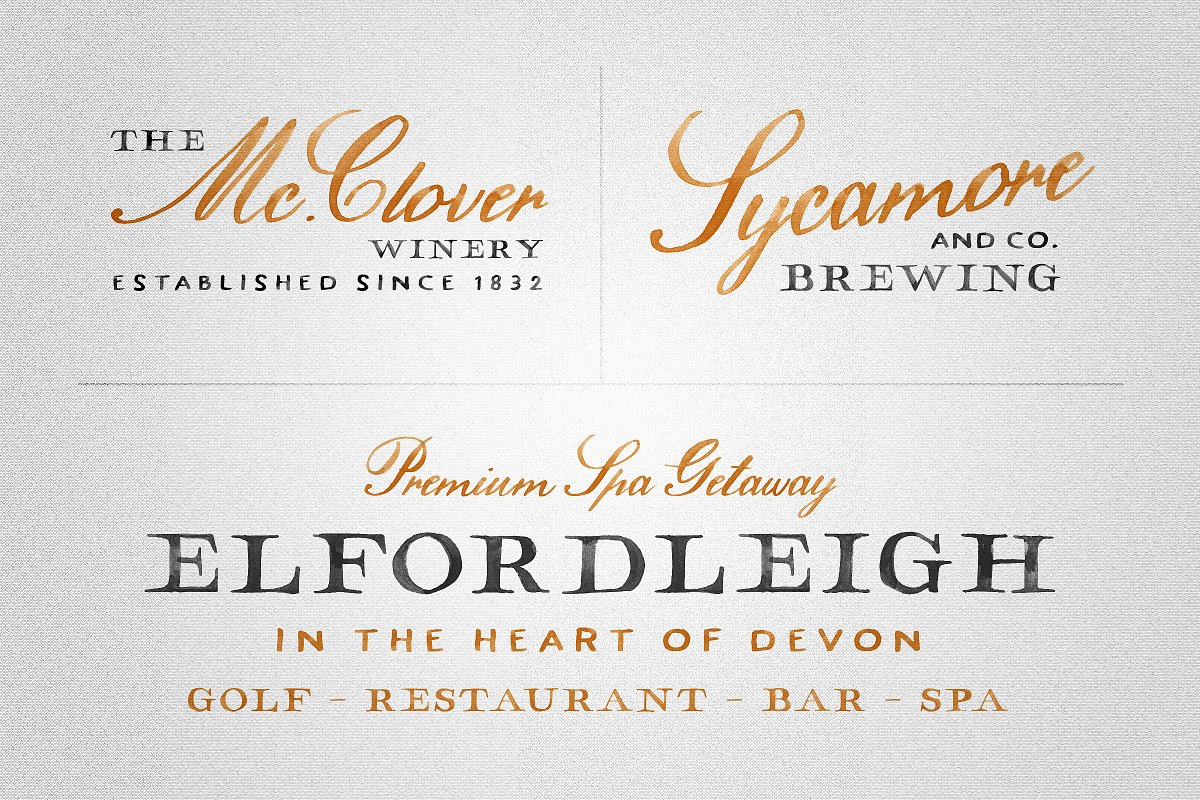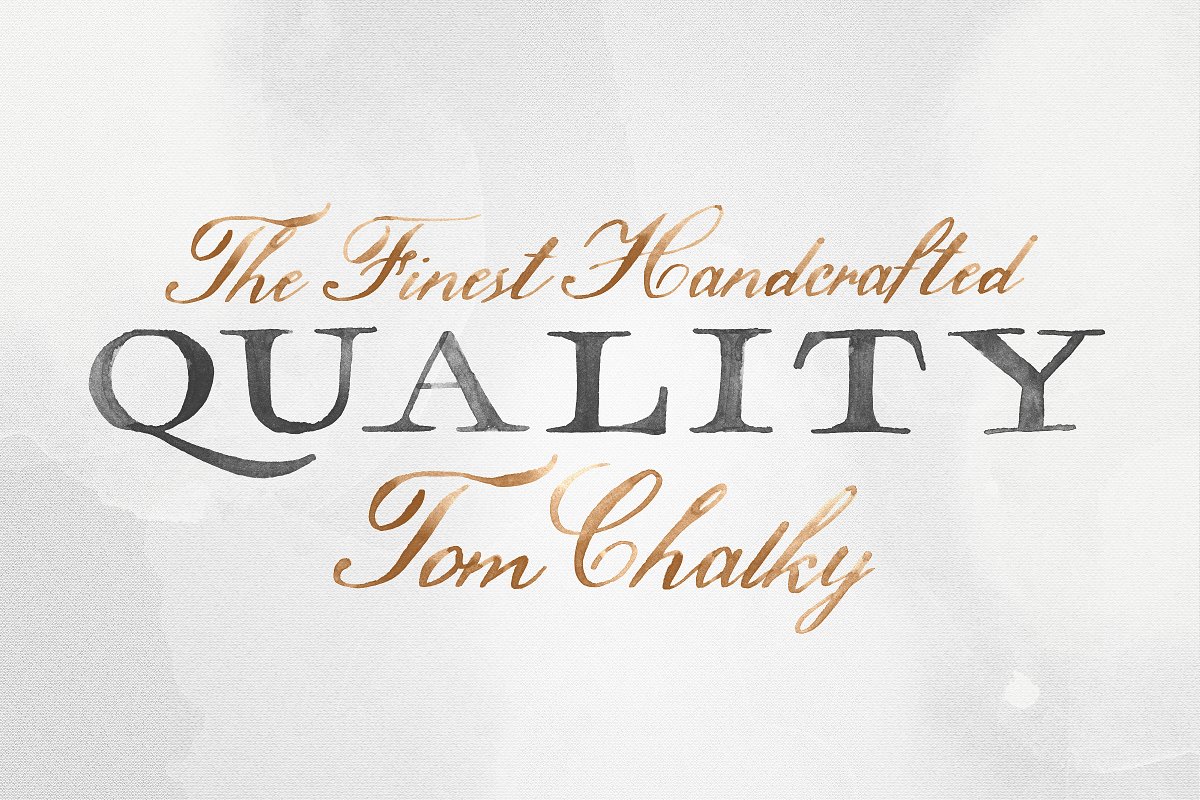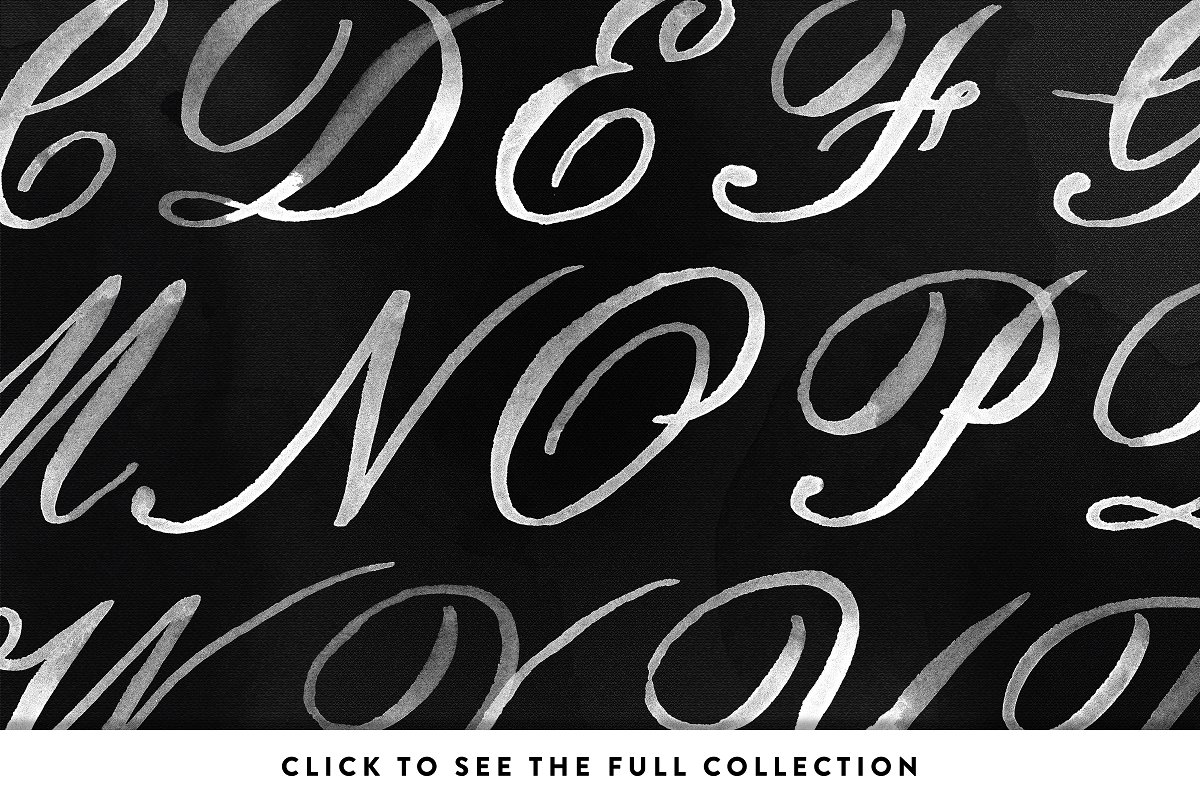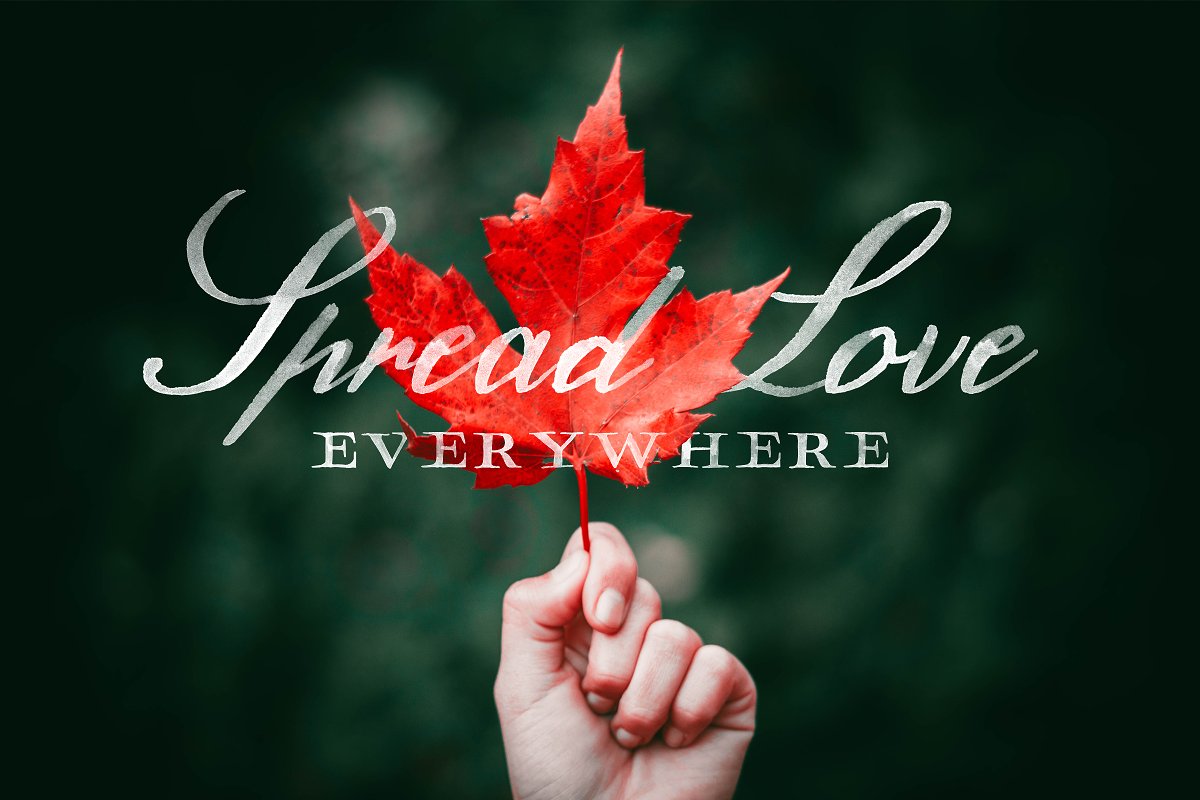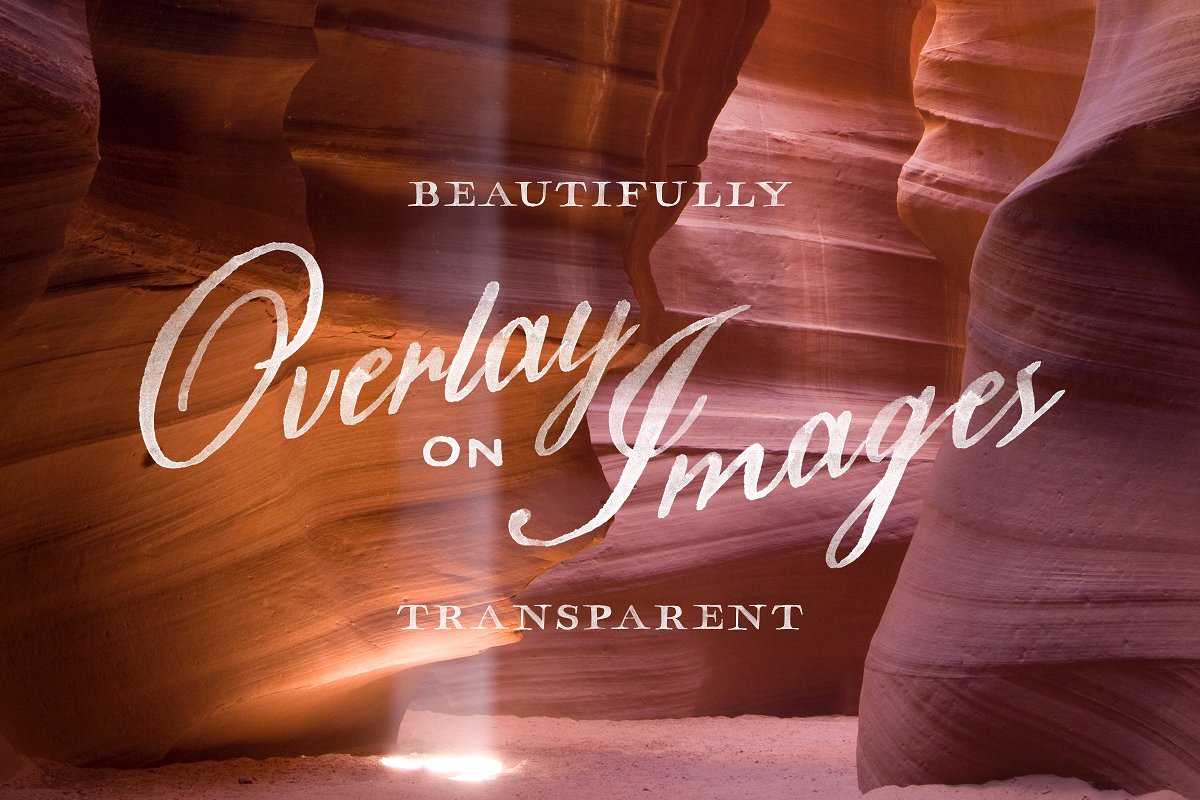
About the Hamilton SVG Collection Font
Introducing the Hamilton SVG Font Collection! The Hamilton SVG Font Family features a serif, sans serif, and script; each boasting exquisite and hand painted textures throughout, Inspired by vintage maps, wine and whisky labels, Hamilton was designed to be a classy cat perfect for packaging design, logos, invitations and so much more, Save 55%! This font has been included within The Handcrafted SVG Font Bundle https://crmrkt
Hamilton Script SVG – Your classic script font that oozes sophistication and quality, Looks great on its own and perfectly compliments the serif, Hamilton Sans SVG – A wonderful sans font, specifically designed to look great small, It doesn’t want the spotlight, it sits comfortably alongside its counterparts
Another all-caps font with alternate lowercase and uppercase glyphs, Hamilton Painted Series – These 3 fonts are copies of the fonts above, However, these do not feature the SVG textures and require no specific software to function, The Hamilton Collection PSD File – For those that do not have access to Adobe CC, but still wish to reap the benefits of SVG fonts
I have included a high-resolution PSD file that includes all of the available glyphs, ready and waiting for you to drag and drop, What are Opentype SVG Fonts?! Opentype SVG is an entirely new font format that functions similarly to standard fonts, The big difference is that this new format allows font designers to incorporate as much detail as our hearts desire into our creations by using high-resolution bitmap images for the letters as opposed to traditional vector, something that was taken full advantage of when creating this collection!Please Note: This font collection does not currently include multilingual support